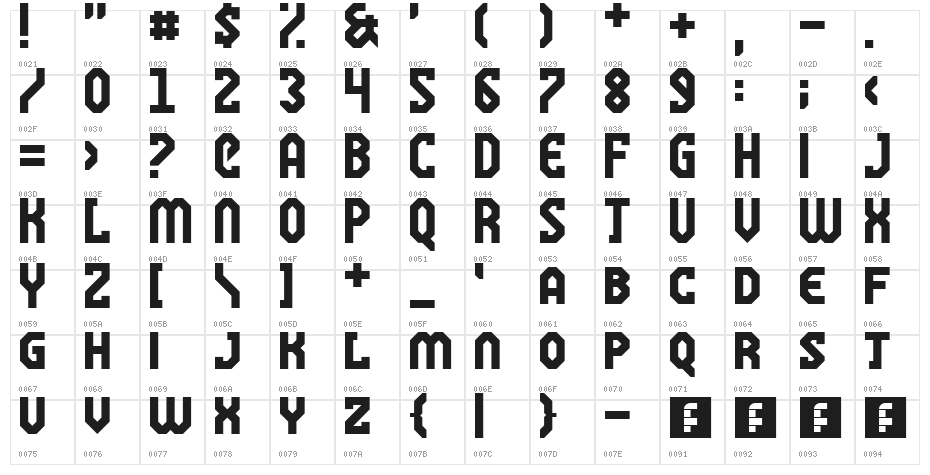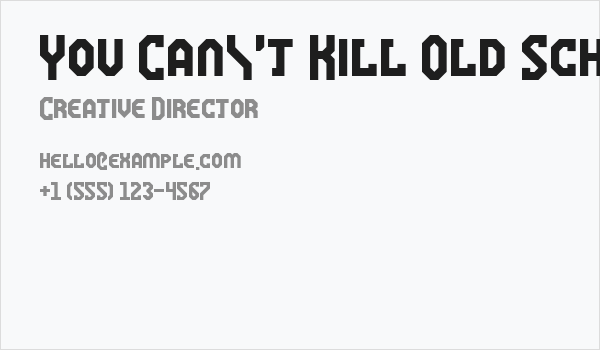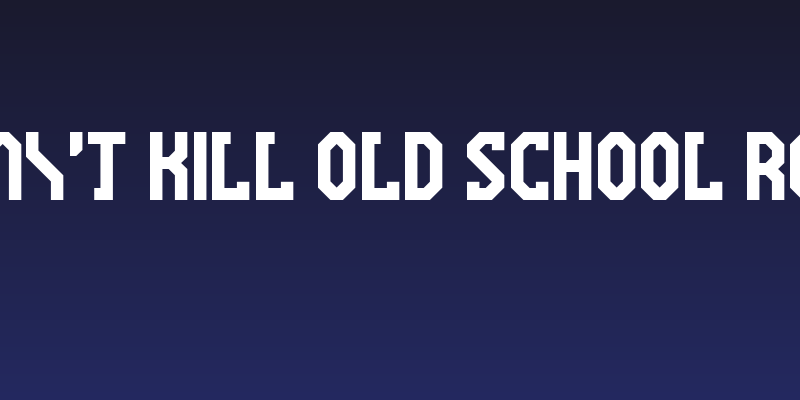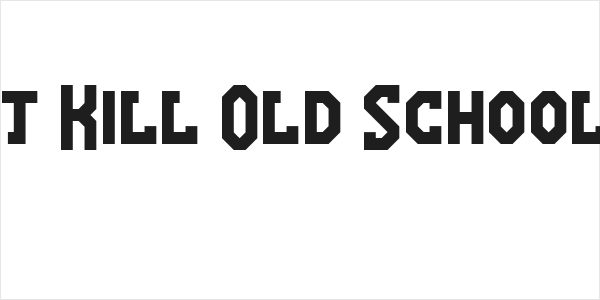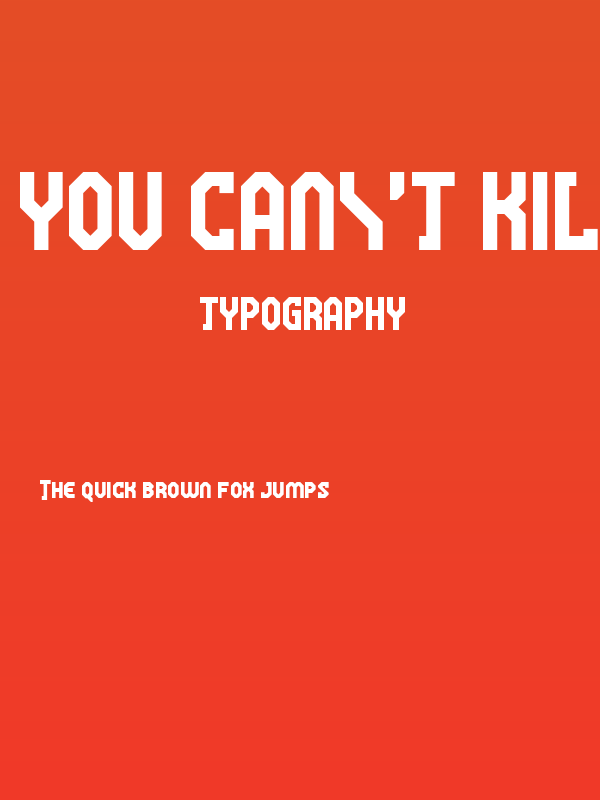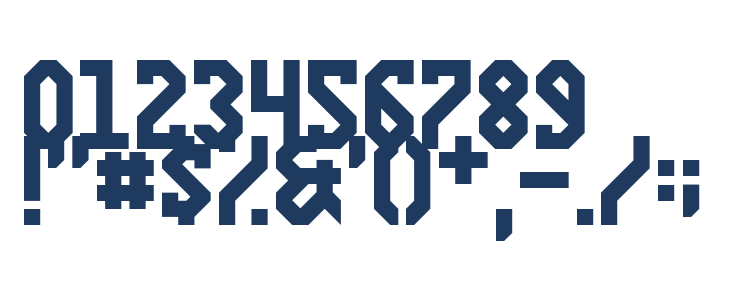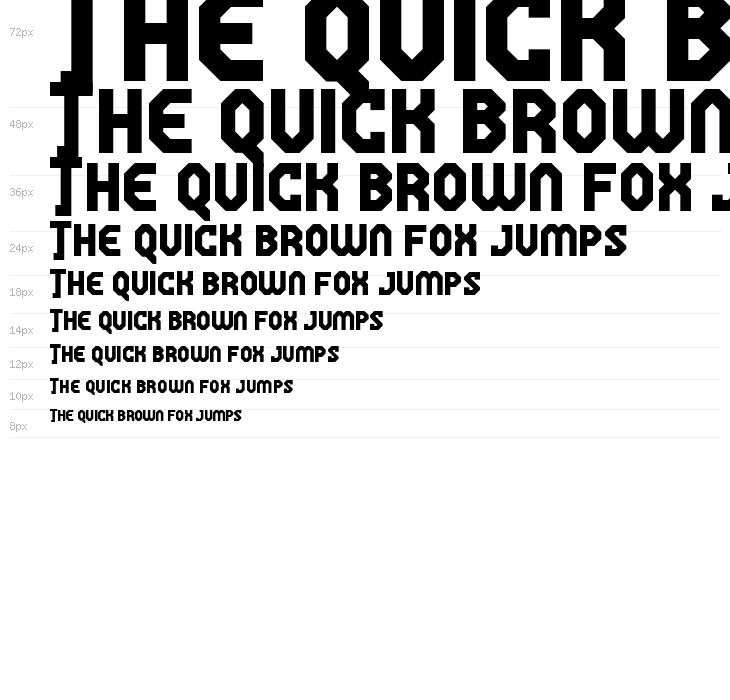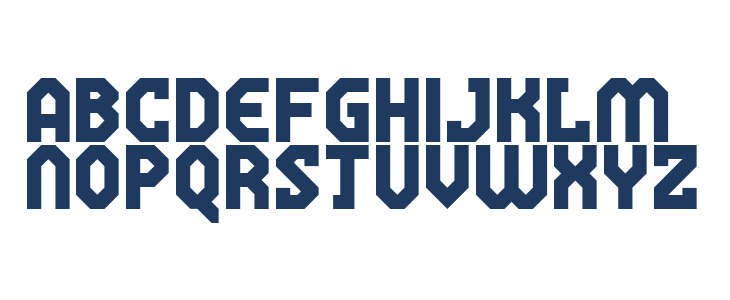
You Can't Kill Old School Regular Font
You Can't Kill Old School Regular Description
This font features a bold, geometric style with sharp angles and a blocky appearance. The characters are uniformly thick, creating a strong and impactful visual presence. The uppercase and lowercase letters share similar design traits, emphasizing consistency and cohesion across the alphabet. Numbers and special characters maintain the same bold and angular aesthetic, ensuring a unified look throughout. The font's distinct style makes it highly suitable for projects that require a modern and edgy feel, while its clear legibility ensures it remains functional.
| Proposed Projects | Ideal for branding, posters, headlines, and any design requiring a strong, modern impact. |